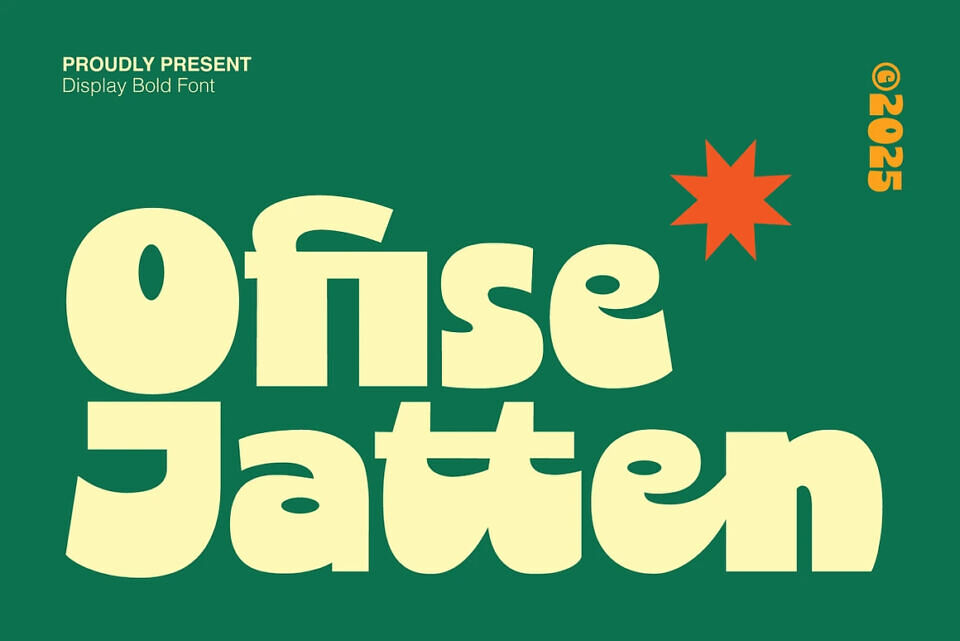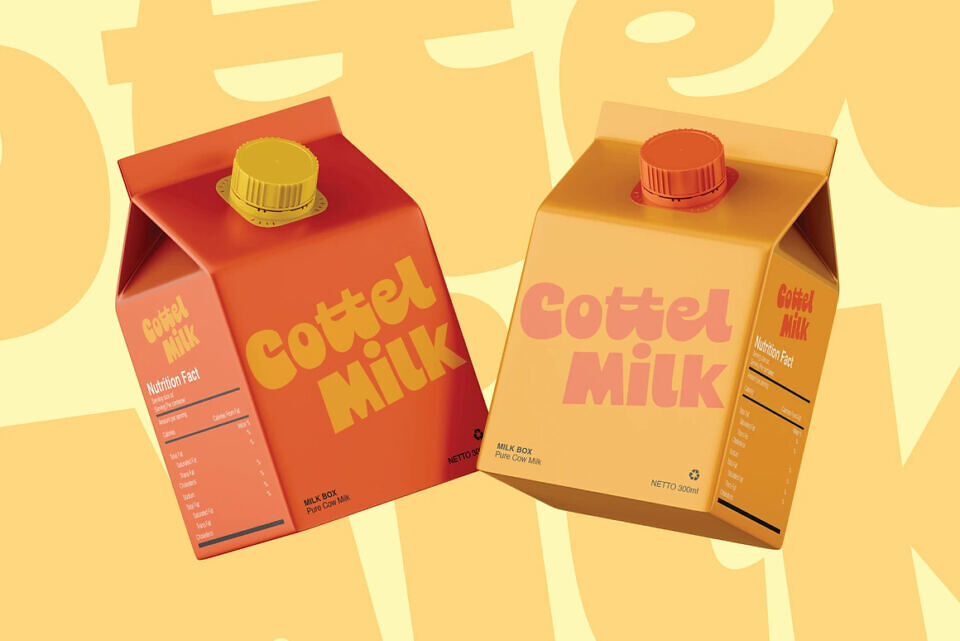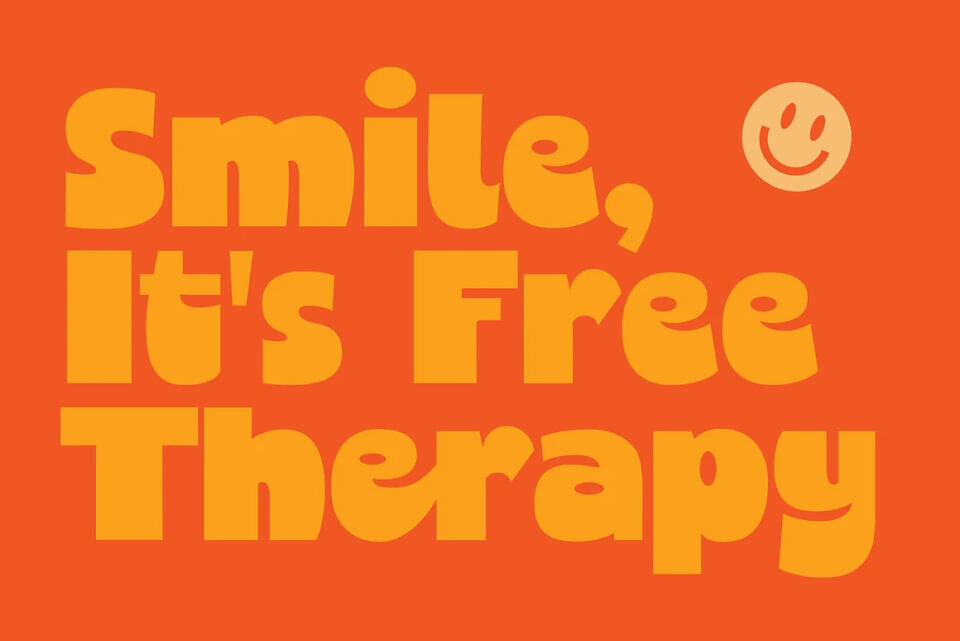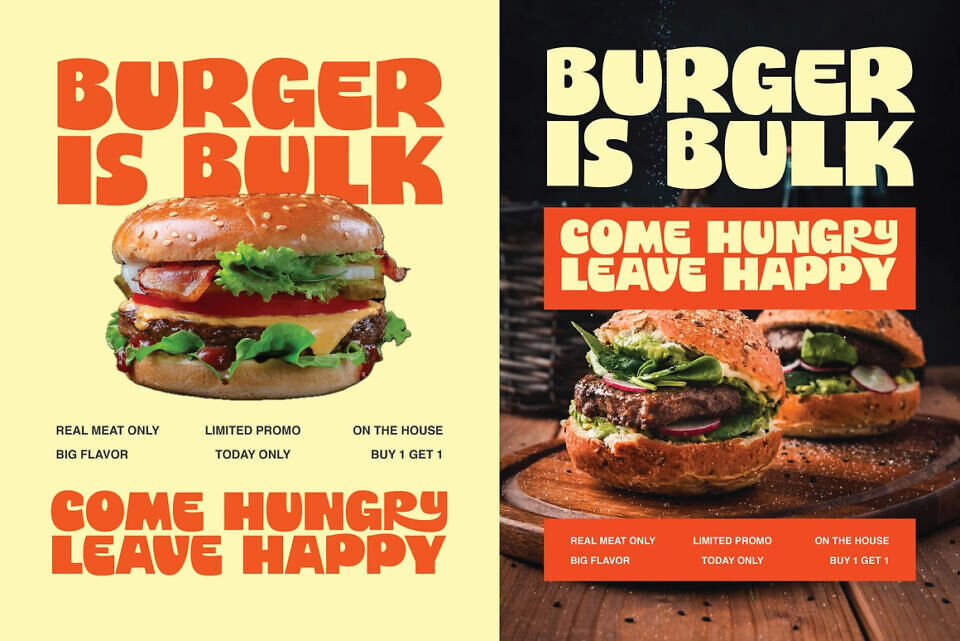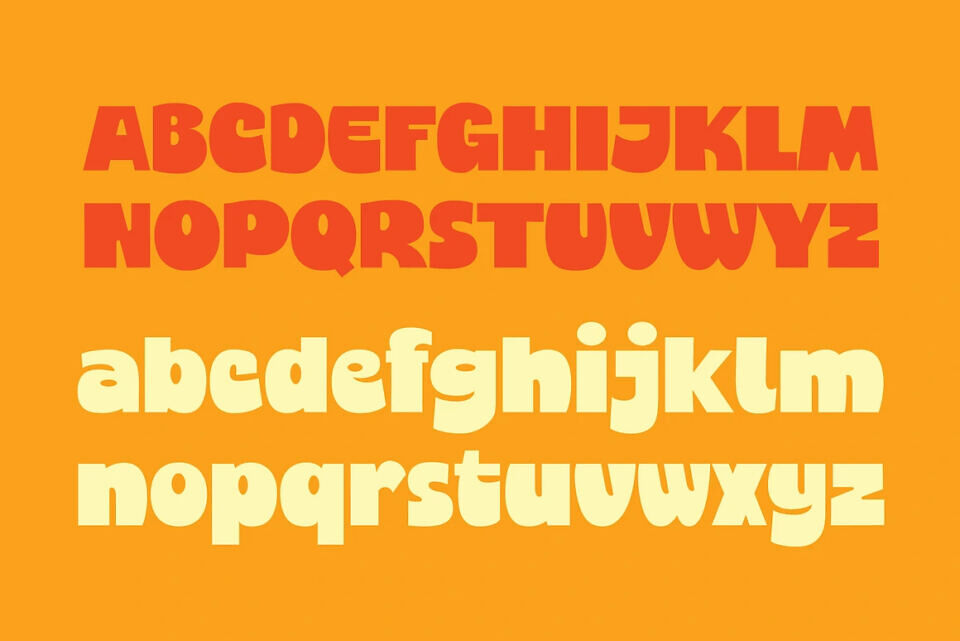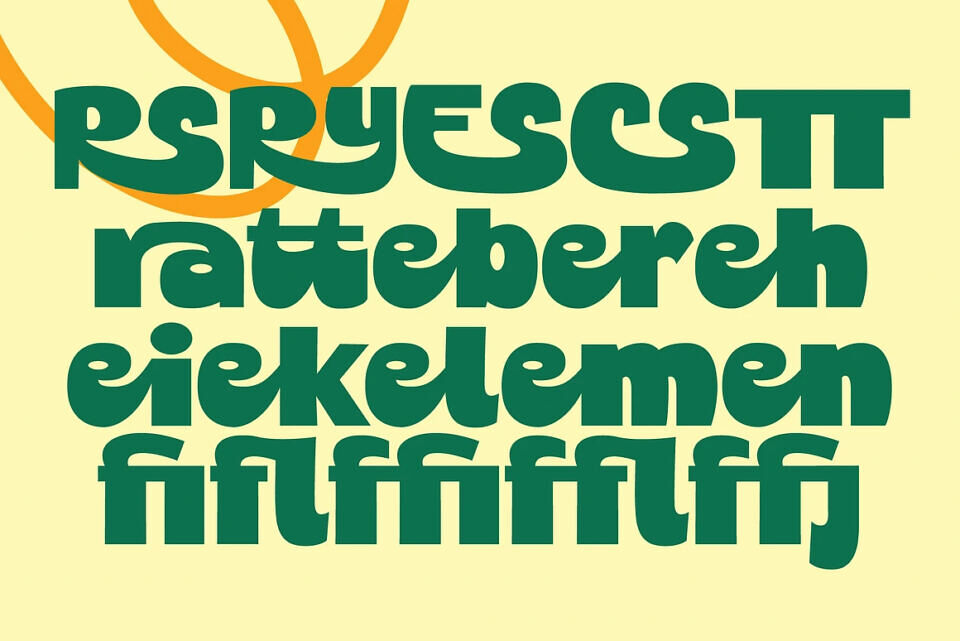
Ofice Jatten Font
Ofise Jatten is a bold display font with playful curves and strong visual presence. Designed to stand out, this typeface features chunky letterforms and dynamic shapes that bring energy, confidence, and a modern personality to your designs. Its bold structure makes it perfect for eye-catching headlines and expressive visual compositions.*
Ideal for posters, branding, packaging, editorial titles, logos, social media graphics, and creative displays, Ofise Jatten delivers a fun yet professional look that instantly grabs attention while remaining highly readable.